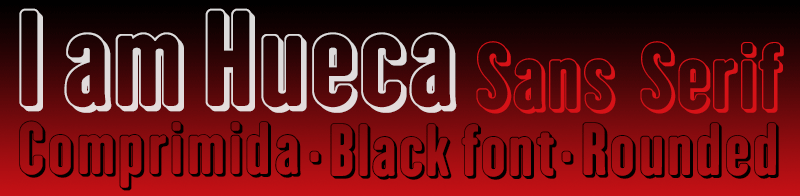
Font name: | I am Hueca |
Yacimiento is a poster sans serif typeface, black and compressed. • Free download webfonts version in my site. • https://defharo.com/fonts/descargar-fuentes-gratis/ |